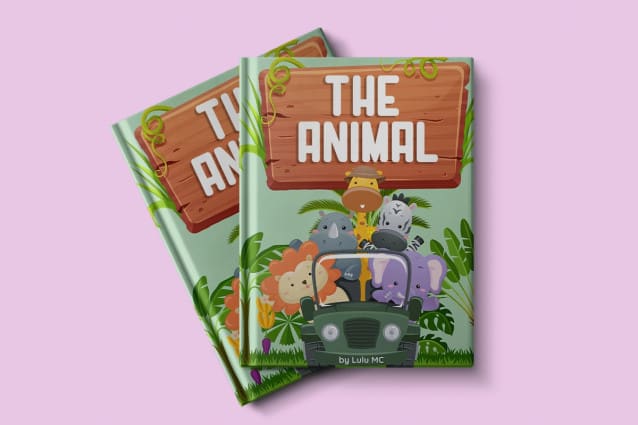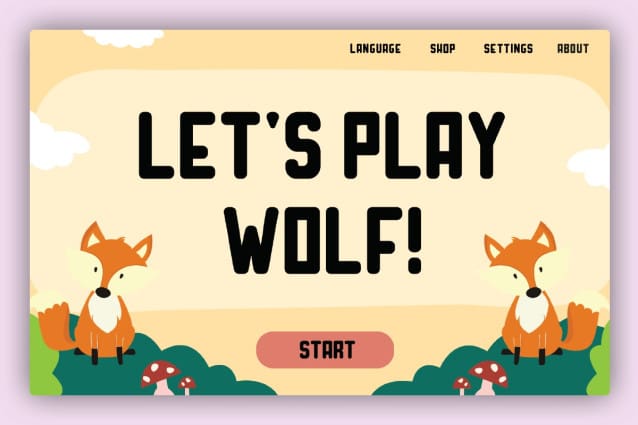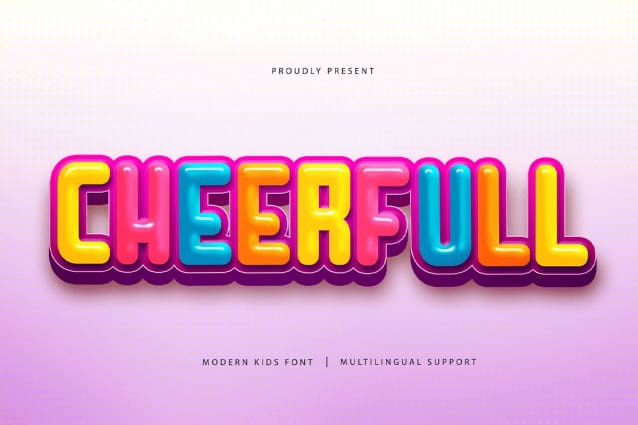
Cheerfull Kids Font
Cheerfull Kids Font was created to present a simple and cute font to anyone who sees it. This is in line with the characteristics of the letters in the Cheerfull Kids Font which show that there is no additional part of the letters and has a voluminous shape in several parts. People who read this variety of typefaces do not have to try very hard to read and understand them. This right is because Cheerfull Kids Font is a legible font. It is suitable for use as a digital font or print font.
By its appearance, Cheerfull Kids Font is very suitable for use in a variety of children’s equipment, such as screen printing on clothes/t-shirts, bags, and picture book covers. This font is also very suitable when used for advertising promotions for children’s products and discount boards. This type of font can be printed in small or large font sizes and still looks good when viewed from close or far.
For those who want to make products with the aim of the market is children, Cheerfull Kids Font will be a very appropriate choice. How simple and funny are very identical and attached to it.